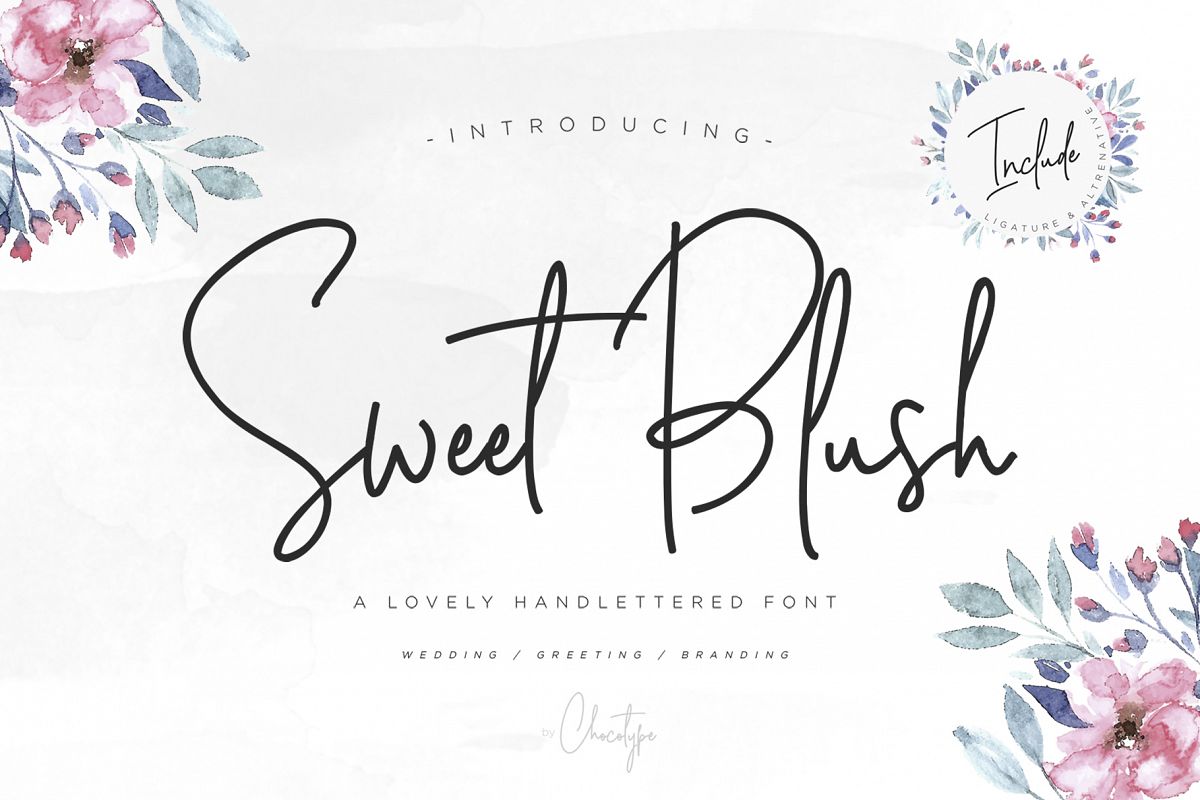
Sweet Blush
Introducing Sweet Blush!
a new lovey signature font made just for you! :)Sweet Blush is a beautiful monoline script font, perfect for use in feminine and editorially oriented designs. This font works best as a header or as the focal point of your creative work! Include ligatures and swashes to make it more like a handwritten font!